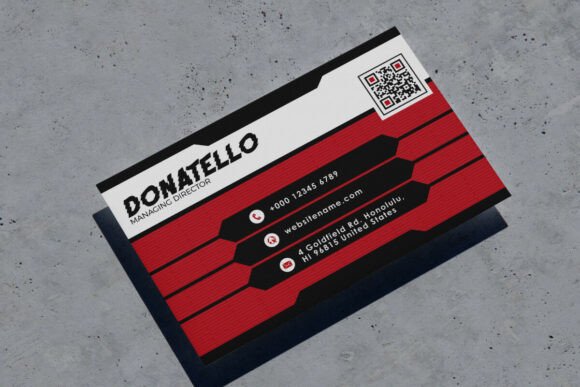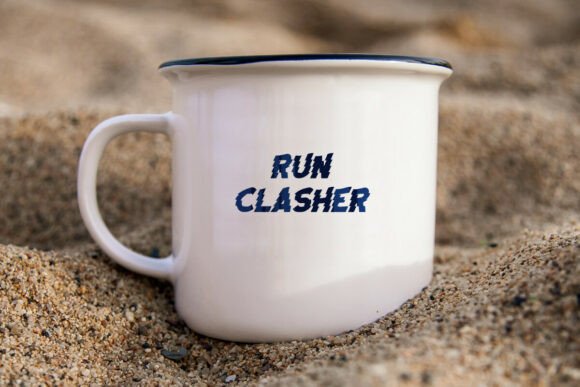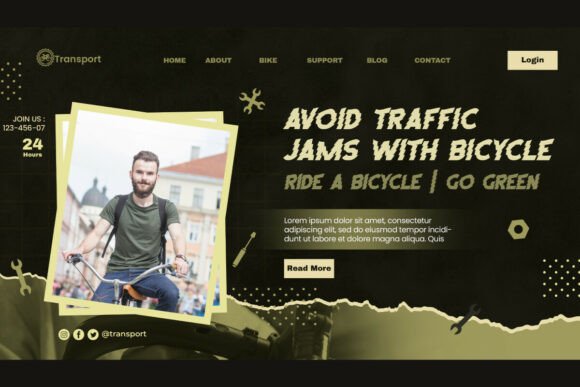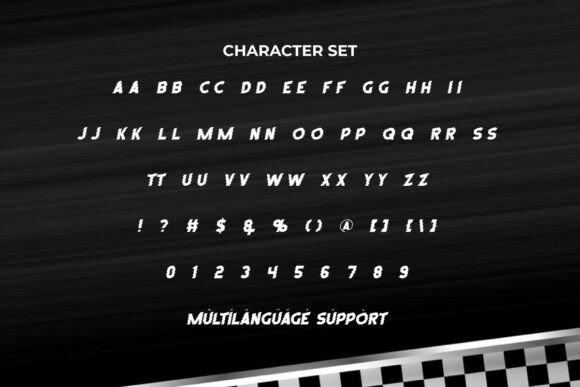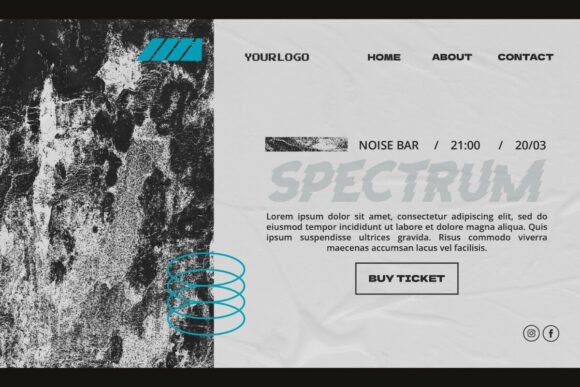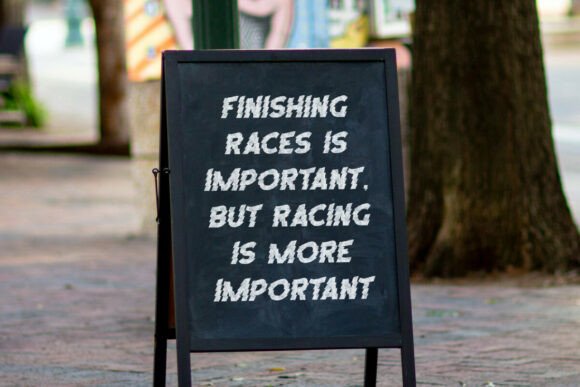
Introduction to Run Clasher Font
Imagine you’re in the middle of a creative project, and you’re struggling to find the perfect font to convey the speed and energy of your design. The words “fast,” “frenzy,” and “frenetic” dance in your mind as you search through endless font options. But then, you stumble upon the Run Clasher Font – a game-changer for designers who crave a high-quality, glitchy display font that screams “speed” and “action.”
Developed by RaisProject, Run Clasher Font is a versatile and powerful design resource that can elevate any project, from advertisements and brand images to custom designs, invitations, and product packaging. With its transparent background and wide range of punctuation, this font is perfect for designers who want to add a touch of excitement and dynamism to their work.
Key Features of Run Clasher Font
- Comes with a transparent background, allowing for easy customization and versatility
- High-quality font with crisp, clear lines and detailed textures, ideal for use in digital design
- Vector format ensures scalability without loss of quality, making it suitable for use in a range of resolutions and sizes
- Designed to be highly customizable, allowing users to adjust the font to fit their specific design requirements
- Perfect for use in creative projects, such as graphic design, digital art, and web design, where a unique and eye-catching font is desired
Honest Review: Run Clasher Font
I recently stumbled upon the Run Clasher Font and I’m excited to share my thoughts on this design resource. Overall, I think it’s a great addition to any designer’s collection, especially for those working on creative projects.
- High-quality design: The font is well-designed and looks great on a transparent background, making it perfect for use in graphics and illustrations.
- Unique style: The font has a unique and quirky style that can add a lot of personality to a design.
- Limited flexibility: The font is quite bold and may not be suitable for use in small text sizes or complex layouts.
- Not suitable for body text: While the font is great for headlines and titles, it may not be the best choice for body text due to its unique style.
Overall, I think the Run Clasher Font is a great design resource for designers working on creative projects. It’s perfect for adding a touch of personality to a design, and the free download makes it accessible to designers of all levels. Just be aware of its limitations, and use it wisely.
Run Clasher Font
Tips for Getting the Most Out of the Run Clasher Font
Use the Run Clasher Font in combination with other design elements to create a visually appealing design.
Experiment with different font sizes and colors to achieve the desired effect.
Common Use Cases for the Run Clasher Font
The Run Clasher Font is perfect for creating:
Logos and branding materials
Social media graphics and posts
Presentation slides and reports